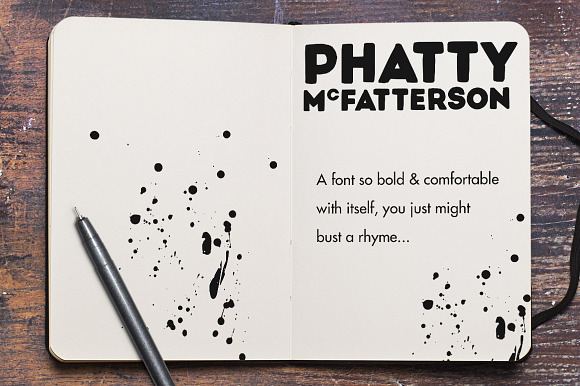
Phatty family display fonts
Phatty McFatterson & Phatty McEmpty display font duo.
The boldness & confidence of an old skool rap duo.
Phatty family display fonts by Mike Brennan Art & Design fits naturally into Branding, posters, packaging, typography.